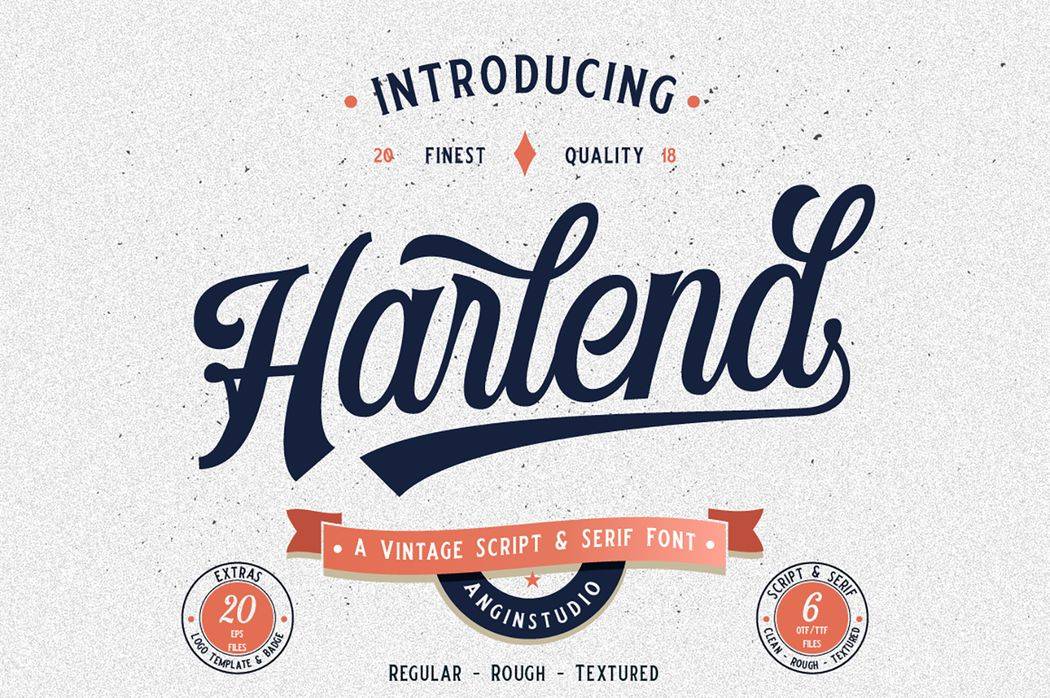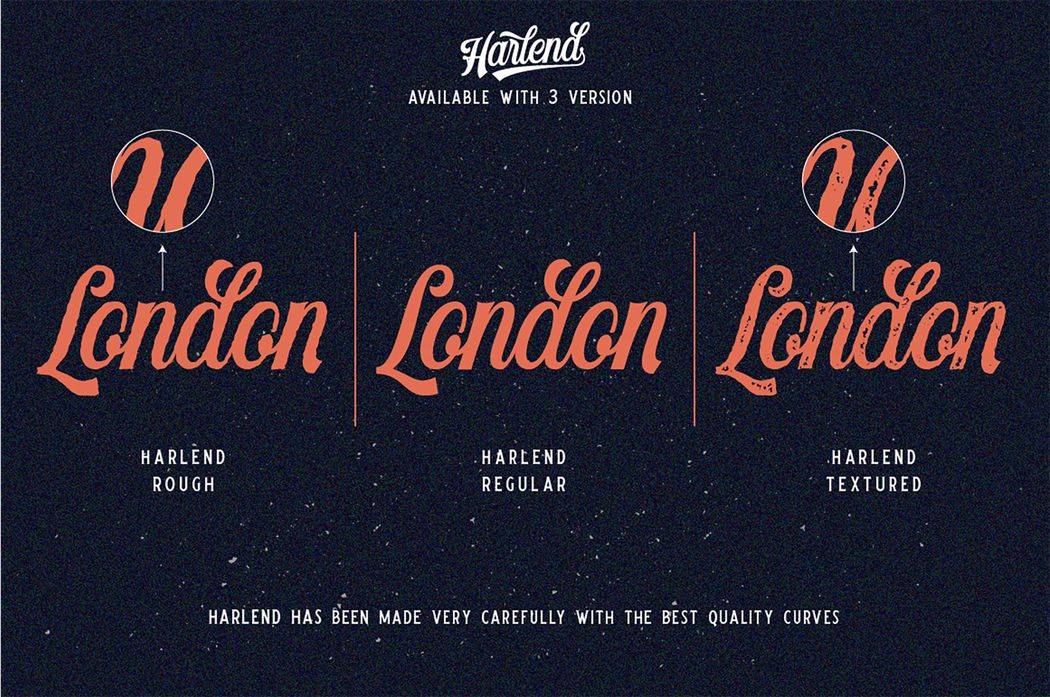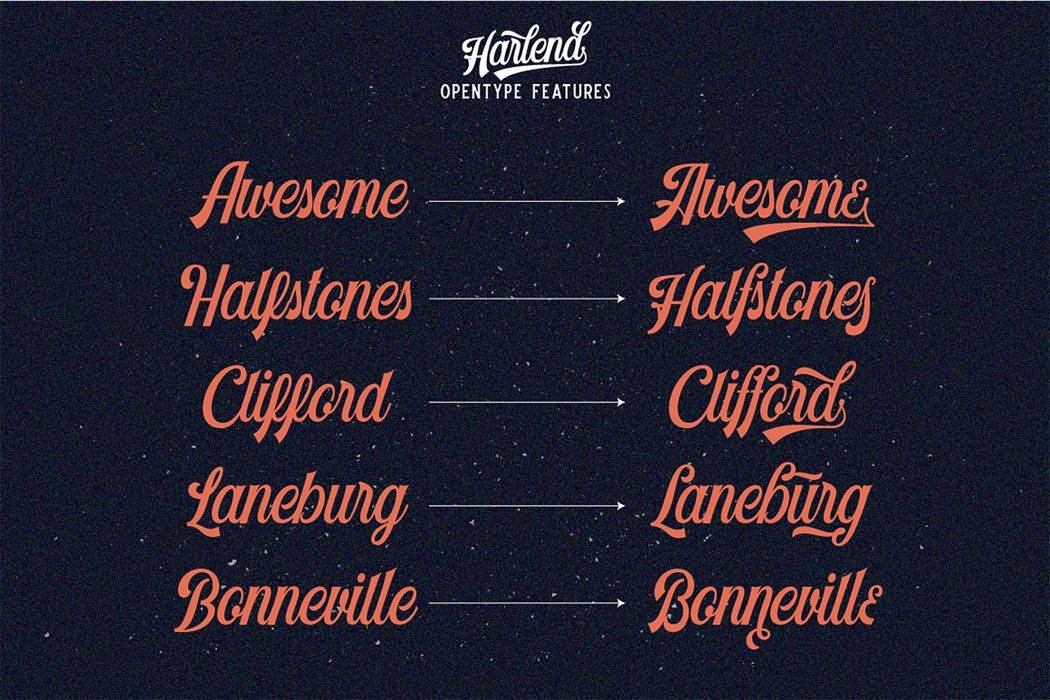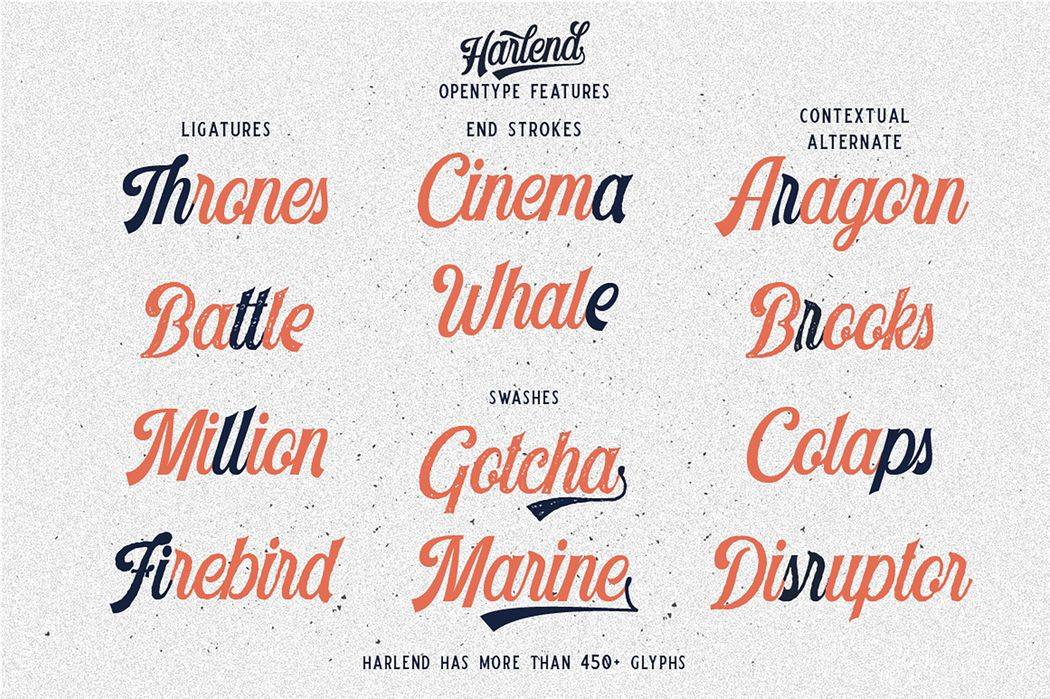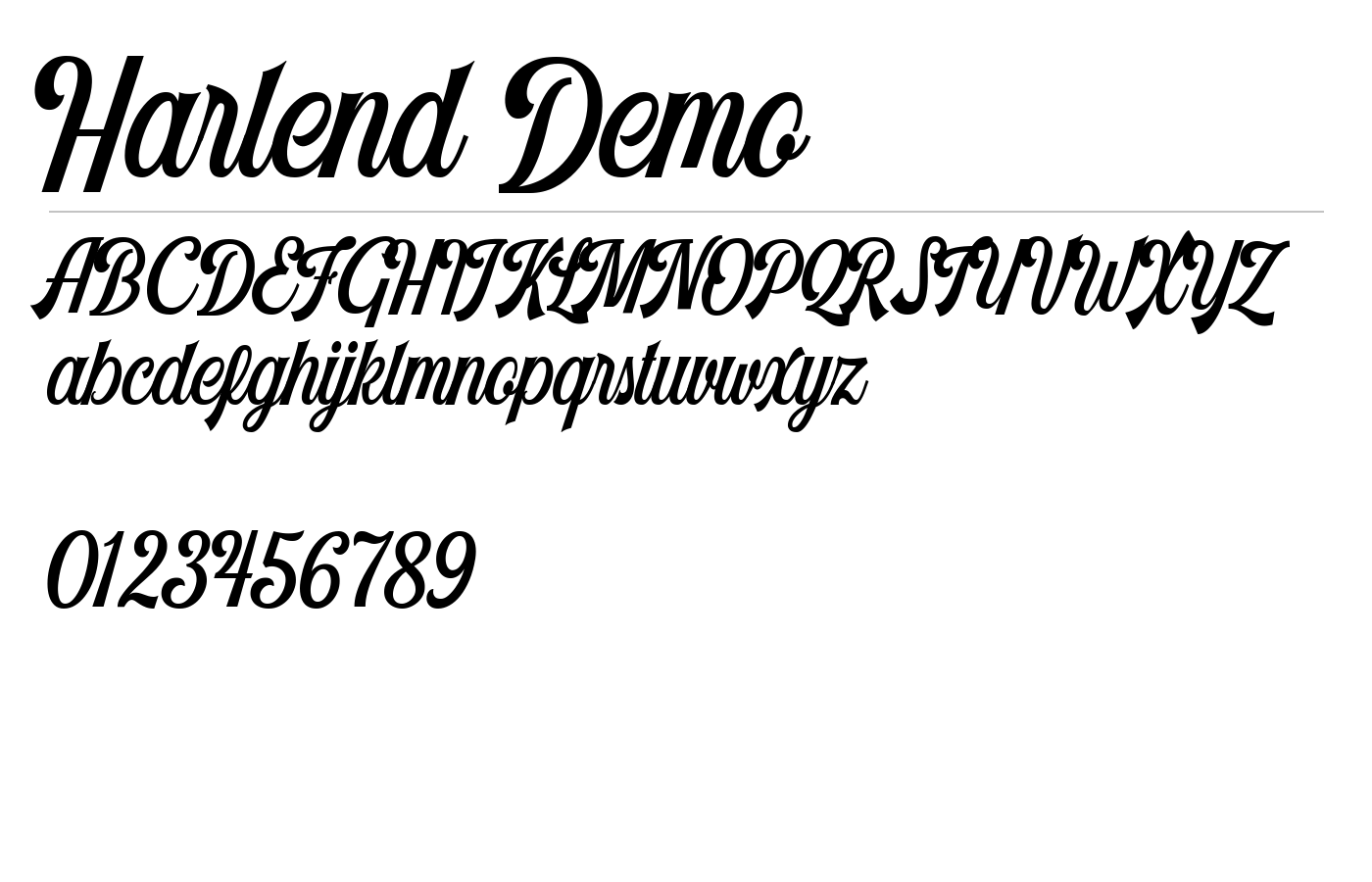
Harlend Script is a stylish and elegant script font with a bold, slightly condensed weight and smooth, flowing curves. Its high contrast strokes and distinctive letterforms bring a vintage yet modern charm, making it ideal for logos, branding, and headlines that need a sophisticated, classy touch. This font works especially well in fashion, luxury, and creative design contexts where expressive, eye-catching typography is key.
Harlend Script Font